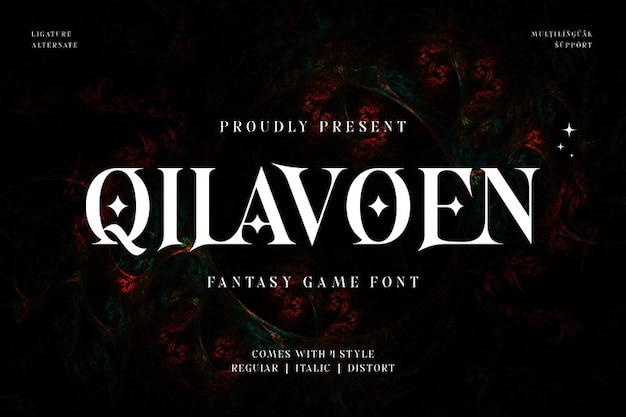
Qilavoen Font
"Qilavoen" is a classy, fantasy-inspired font perfect for gaming and imaginative worlds. Each letter features elegant curves and intricate details, evoking a sense of magic and adventure. Its refined yet bold design makes it ideal for fantasy games, book covers, or any project that seeks to blend sophistication with the enchanting allure of a mystical realm.